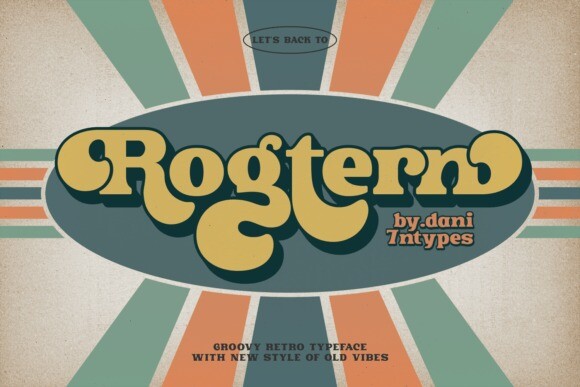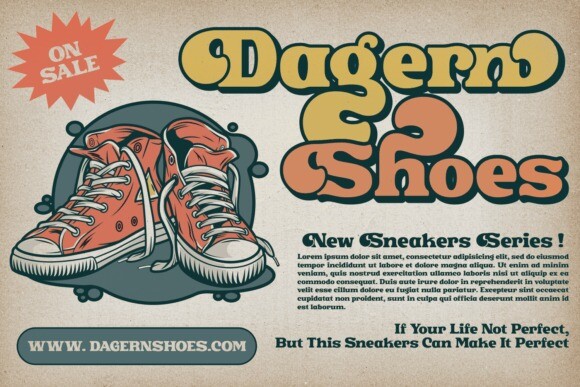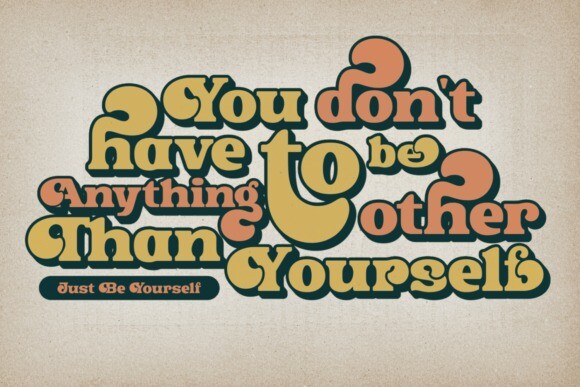
Rogtern Font
Rogtern font – a harmonious blend of groovy, retro, and vintage aesthetics that effortlessly transport you back to an era of vibrant energy and timeless charm. This serif font boasts bold swashes that elegantly curve and flourish, adding a touch of sophistication to its already captivating character.
Rogtern’s carefully crafted design prioritizes readability, ensuring that each character is a visual delight and a breeze to peruse. Its well-defined serifs contribute to a sense of familiarity, while the bold weight commands attention, making your text stand out with confidence.
Whether used for headlines, posters, logos, t-shirt design, or creative projects, Rogtern encapsulates the spirit of the past while embracing modern legibility. Immerse yourself in the nostalgia of a bygone era, while relishing the ease of reading that this font effortlessly delivers. Let Rogtern be your gateway to a typographic journey where the groovy, retro, and vintage worlds converge with contemporary convenience.